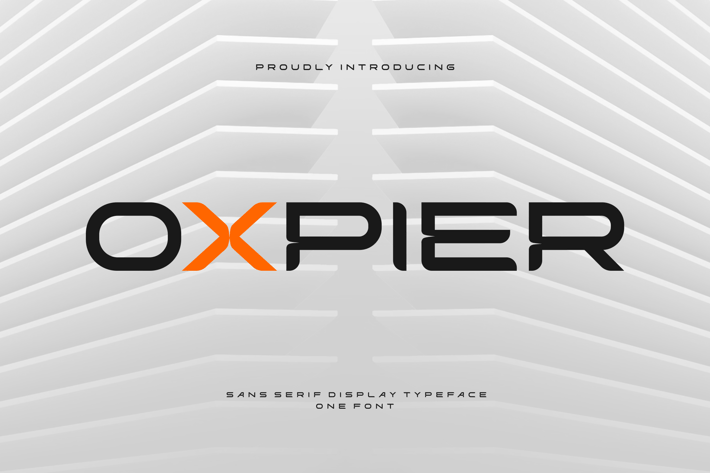
Oxpier - Sans Serif Display Typeface
Introducing our new product Oxpier Font - Sans Serif Display Typeface
Oxpier Font - Modern Font is a bold and authentic display font. The font is suitable for any branding project like logo,
t-shirt printing, esport, and many more. outstanding in a wide range of contexts.